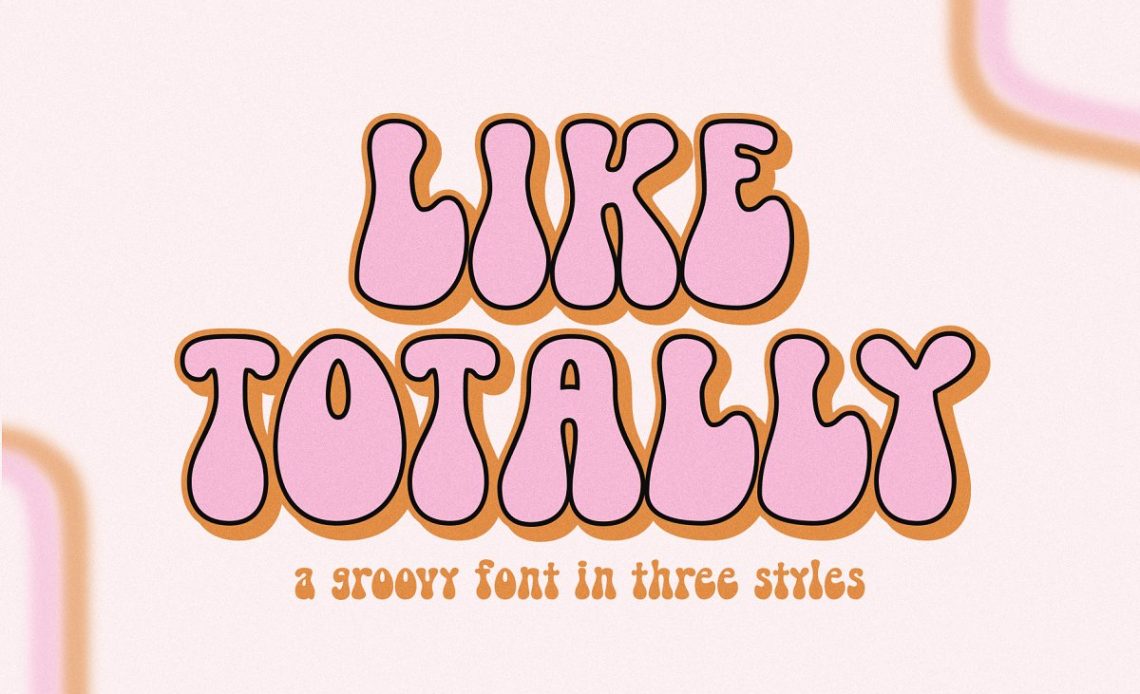
Welcome to the groovy and retro world of Like Totally | Retro Groovy Font! Created by the talented Kaitlynn Albani, this font family boasts a unique and fun vibe that is sure to make your designs stand out from the crowd.
Featuring three different styles of fonts, including Like Totally Regular, Like Totally Outline, and Like Totally Shadow, this font is perfect for creating fun and unique words and quotes. The single layer fonts are specifically designed for use with Cricut machines, making it a must-have for any crafter.
But that's not all! This font is also perfect for a wide range of applications, including retro designs, branding, shirts, logos, stickers, social media posts, and so much more. Whether you're looking to create a funky and unique design or add a touch of groovy nostalgia to your projects, Like Totally | Retro Groovy Font has got you covered.